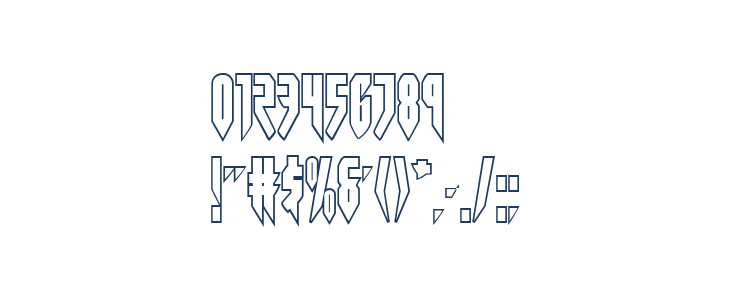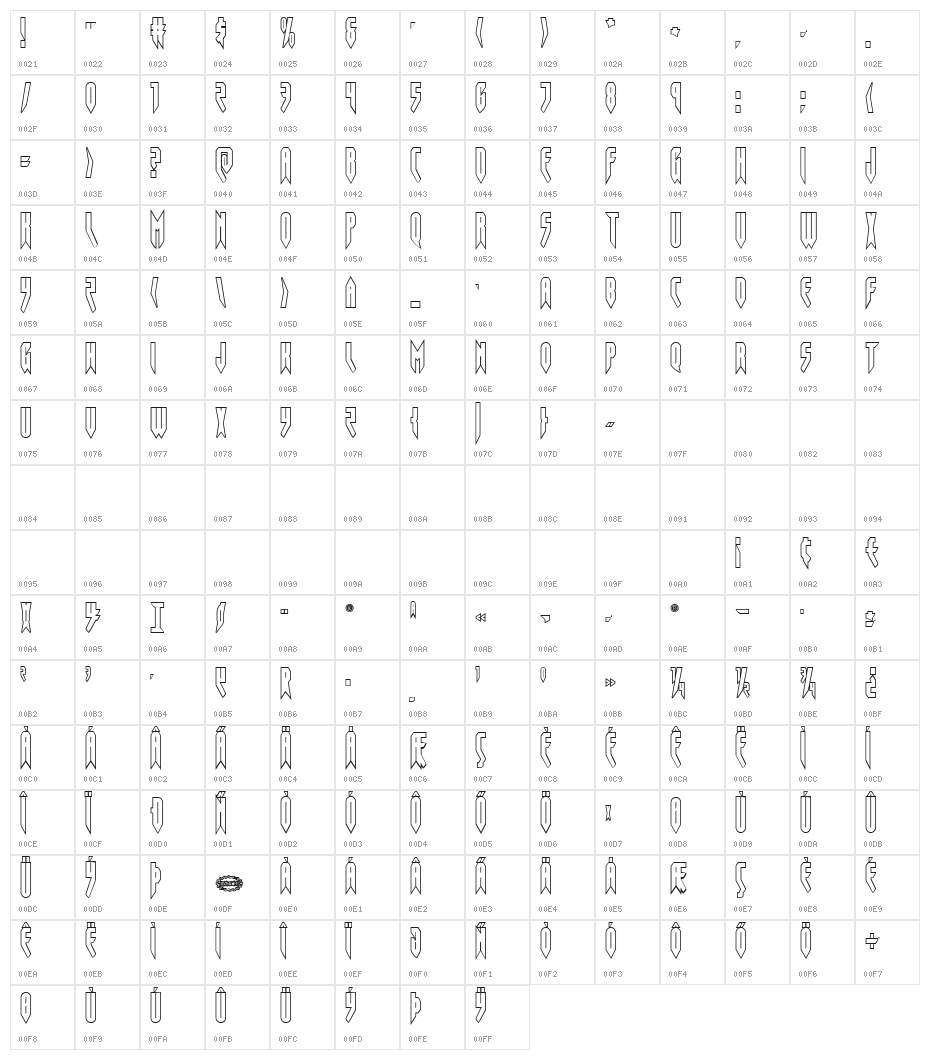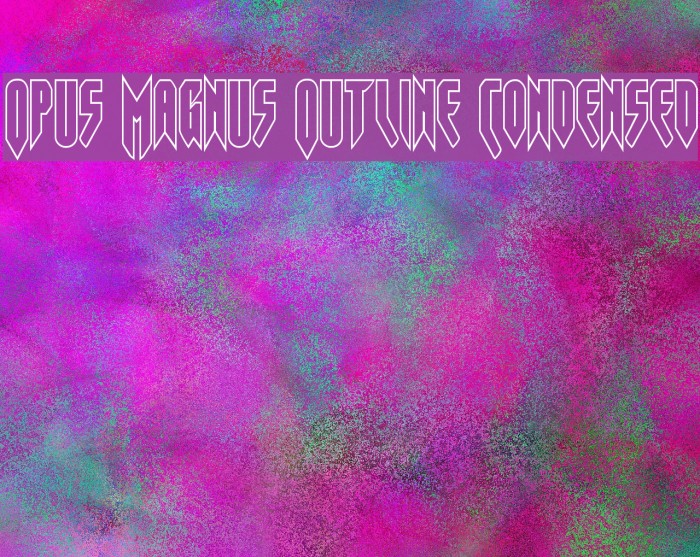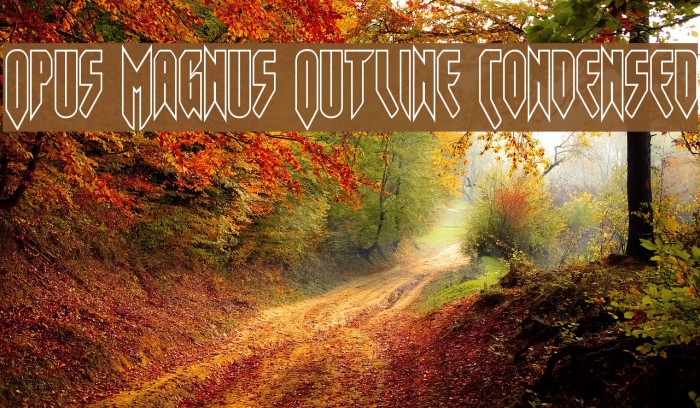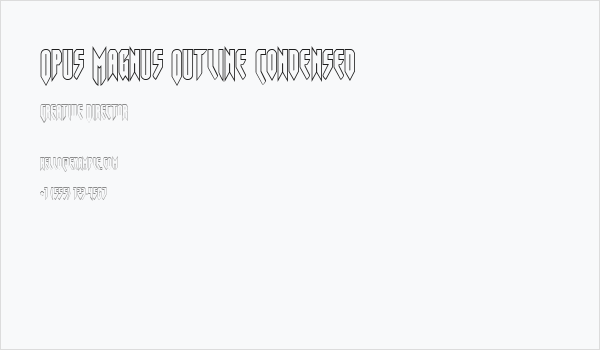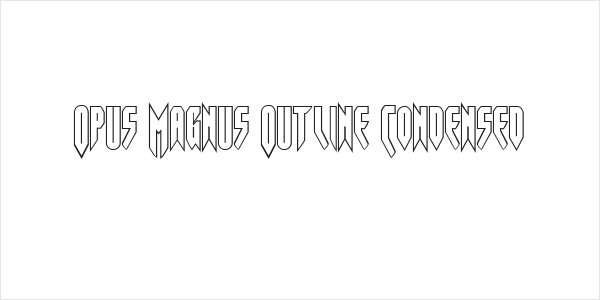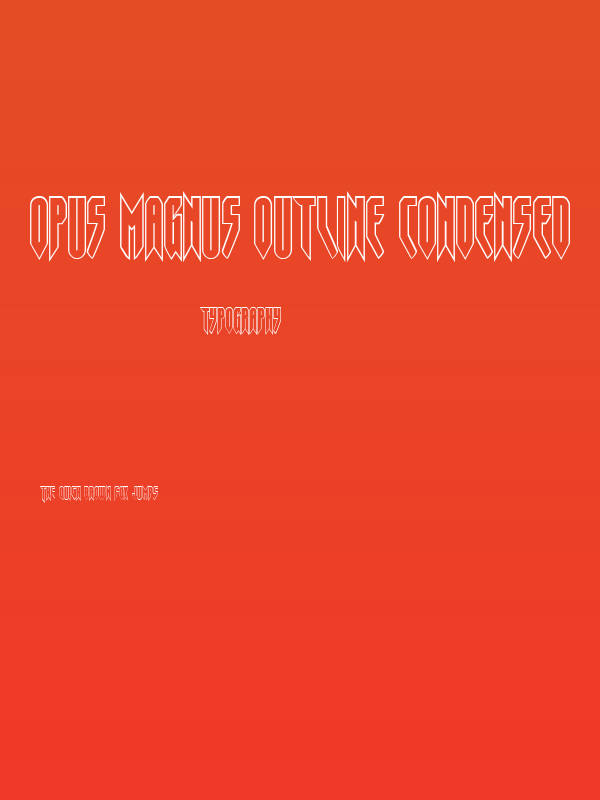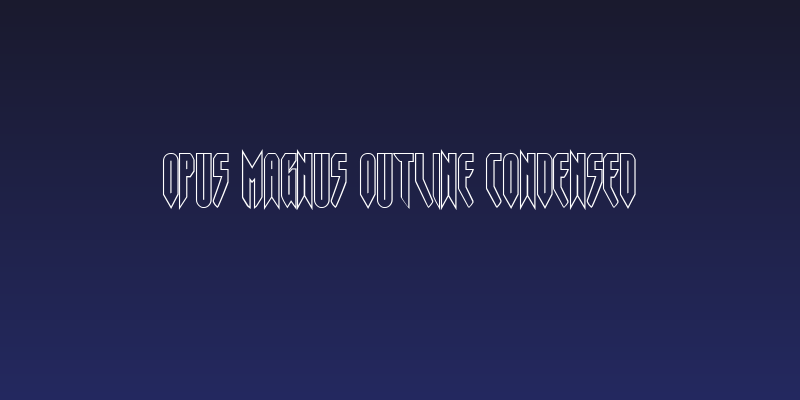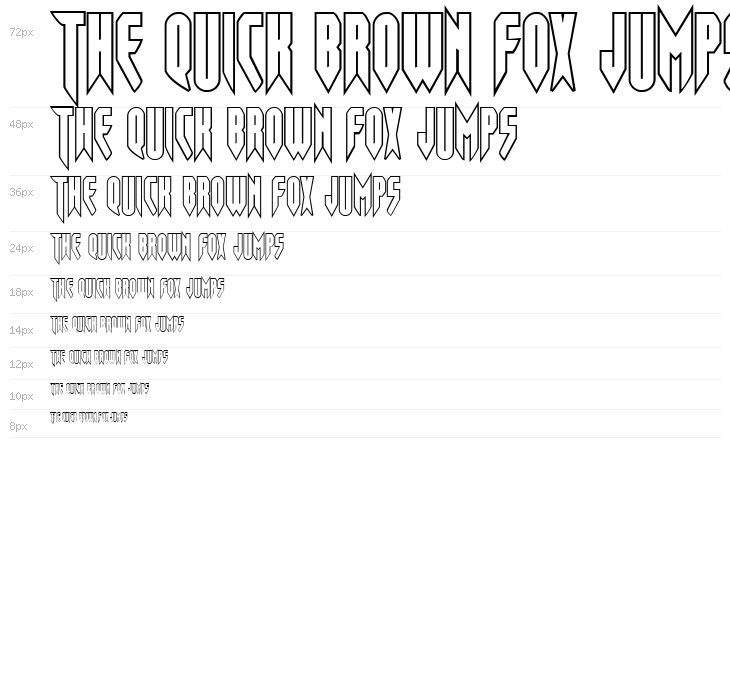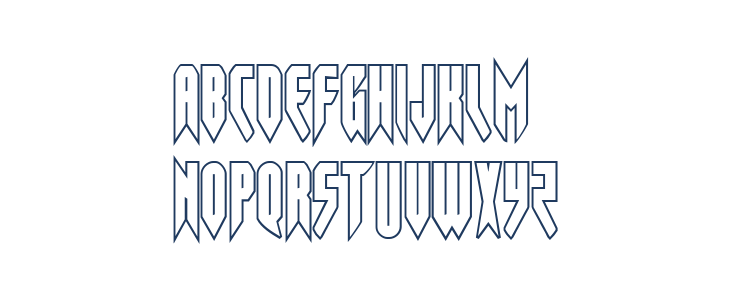
Opus Magnus Outline Condensed Font
Opus Magnus Outline Condensed Description
This font features a bold, geometric outline style with a condensed form, creating a striking and modern appearance. The characters are sharply angular, with pointed edges and a consistent vertical alignment that enhances its structured look. The uppercase and lowercase letters share a similar height, contributing to its uniformity. The numbers and special characters maintain the same angular and condensed design, ensuring a cohesive visual experience across all elements. This font's outline nature gives it a unique, almost futuristic vibe, making it stand out in any design.
Proposed ProjectsIdeal for posters, album covers, branding, and any project needing a bold, futuristic touch.